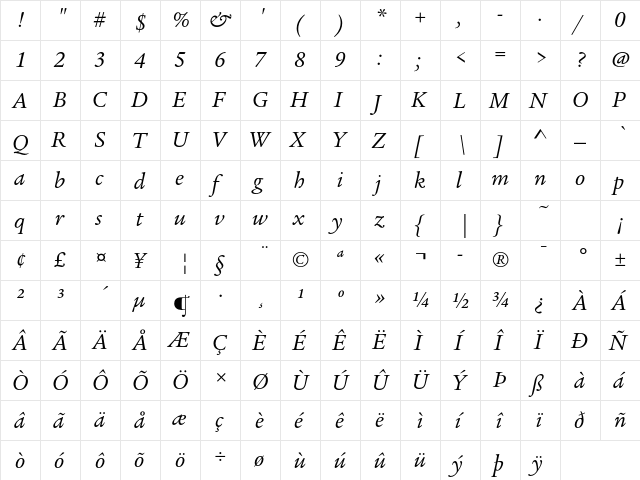
ITC Legacy Serif Std Book Italic
| Designer | Ronald Arnholm |
Design Context for ITC Legacy Serif Std Typeface
ITC Legacy Serif Std brings classic typographic sensibility to the table — its serifs and measured letterforms reflect centuries of print heritage. The dynamic lean of this cut emphasises speed and emphasis in any layout.
Pro Tip: Set ITC Legacy Serif Std with slightly loose tracking in headlines to let each letterform's detail read clearly at display sizes.